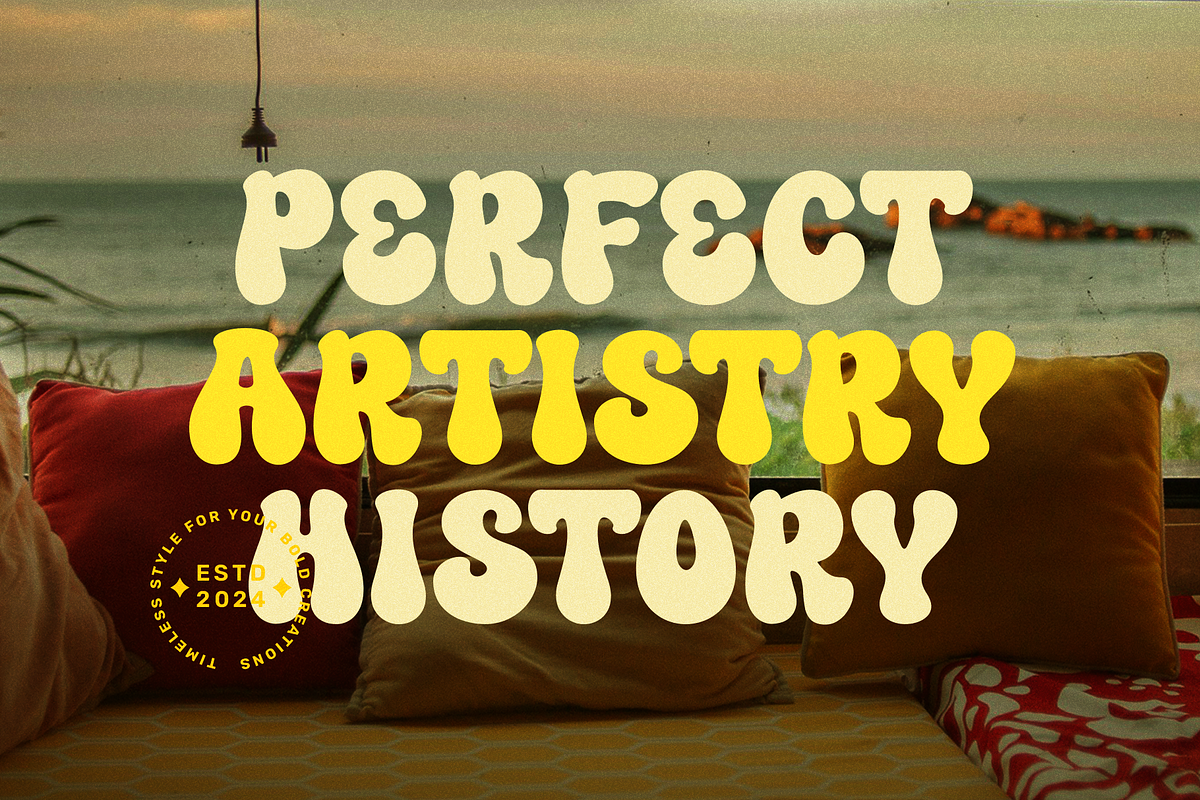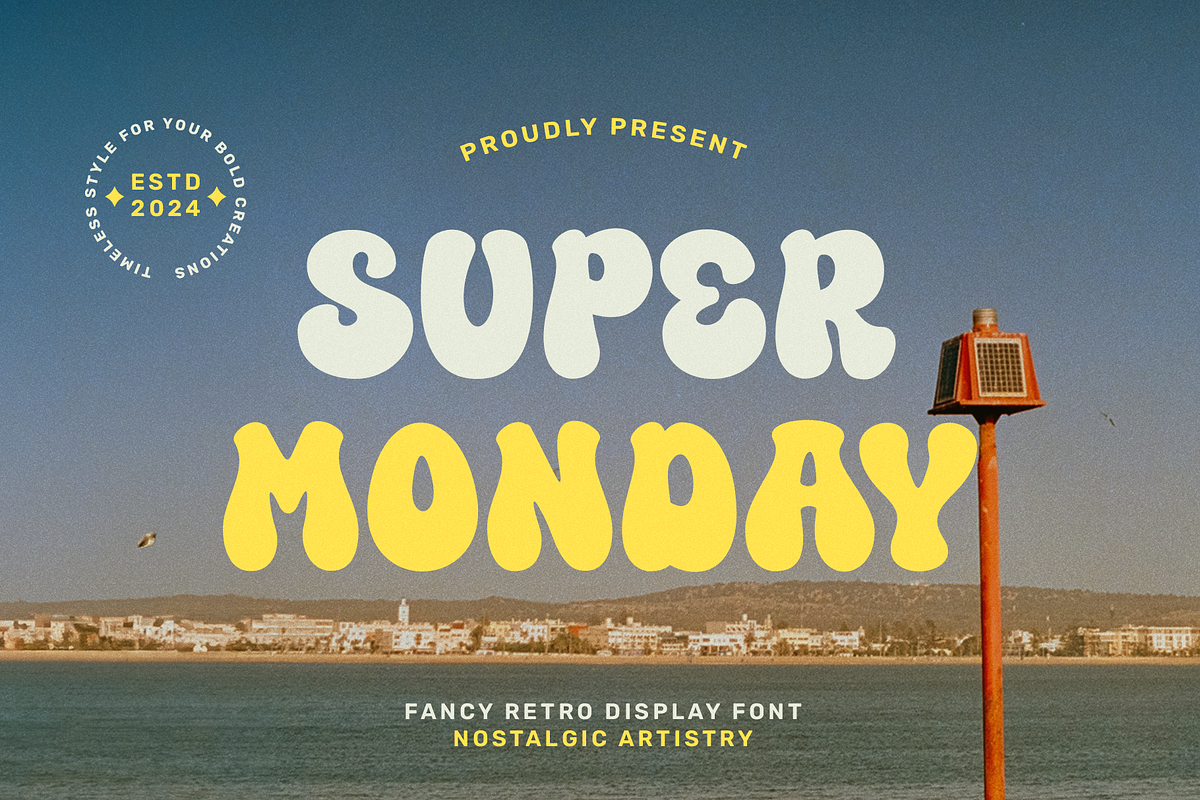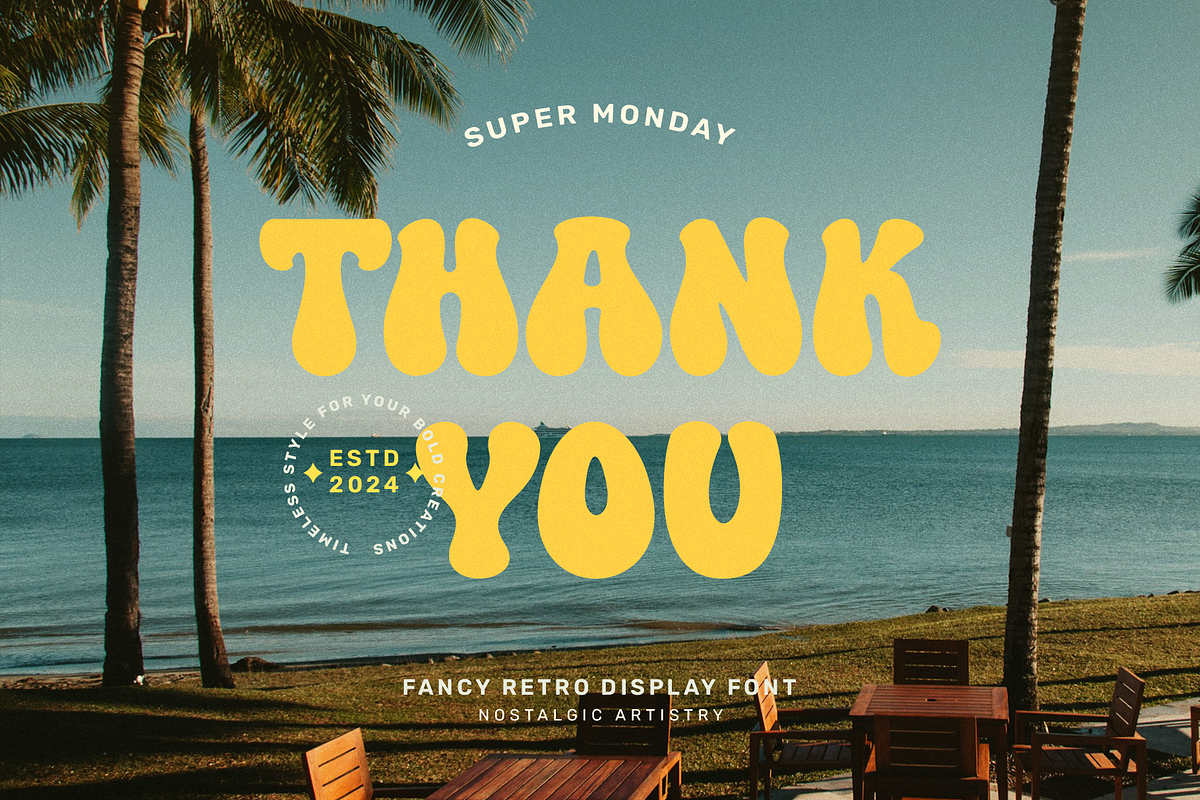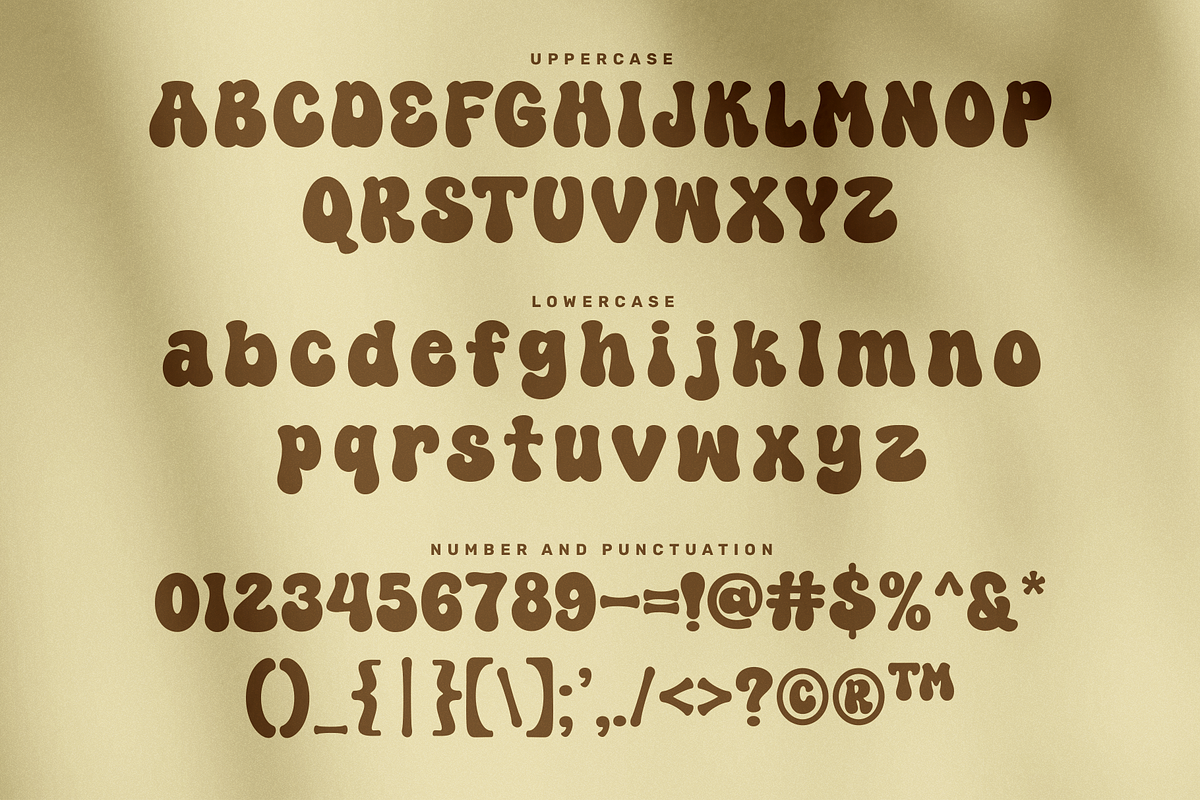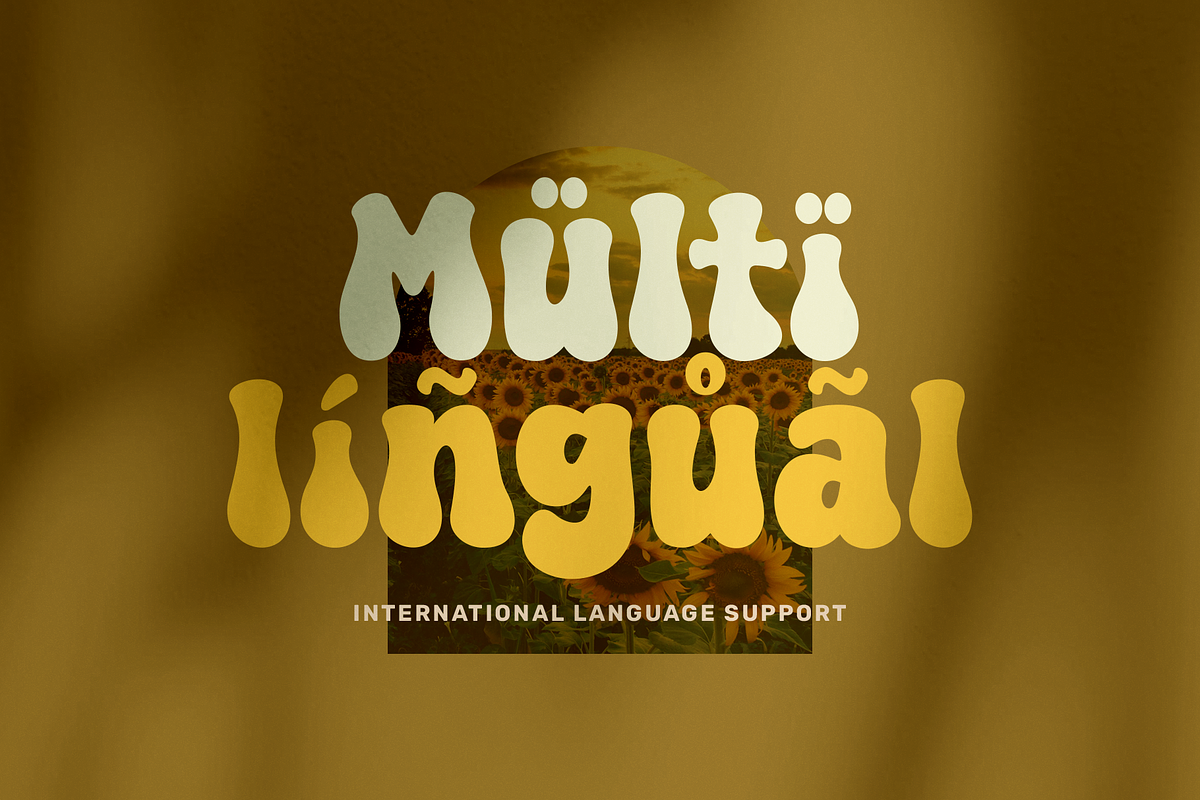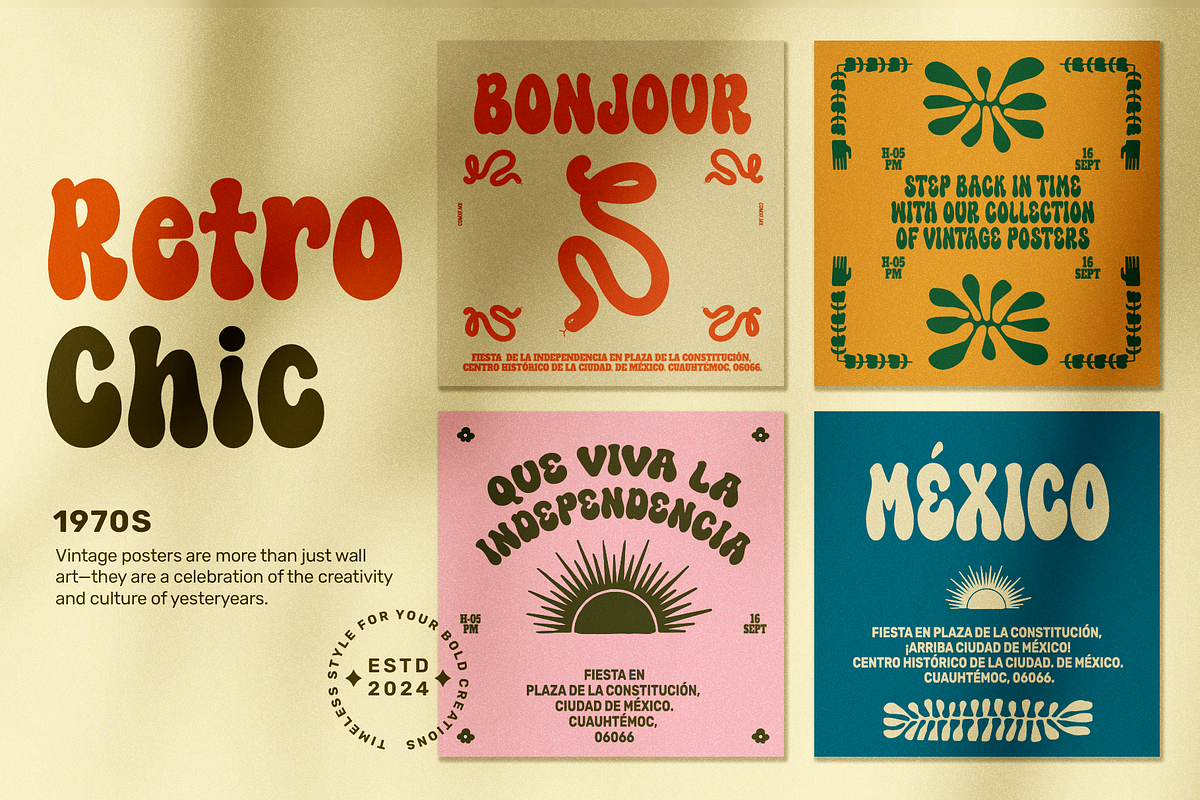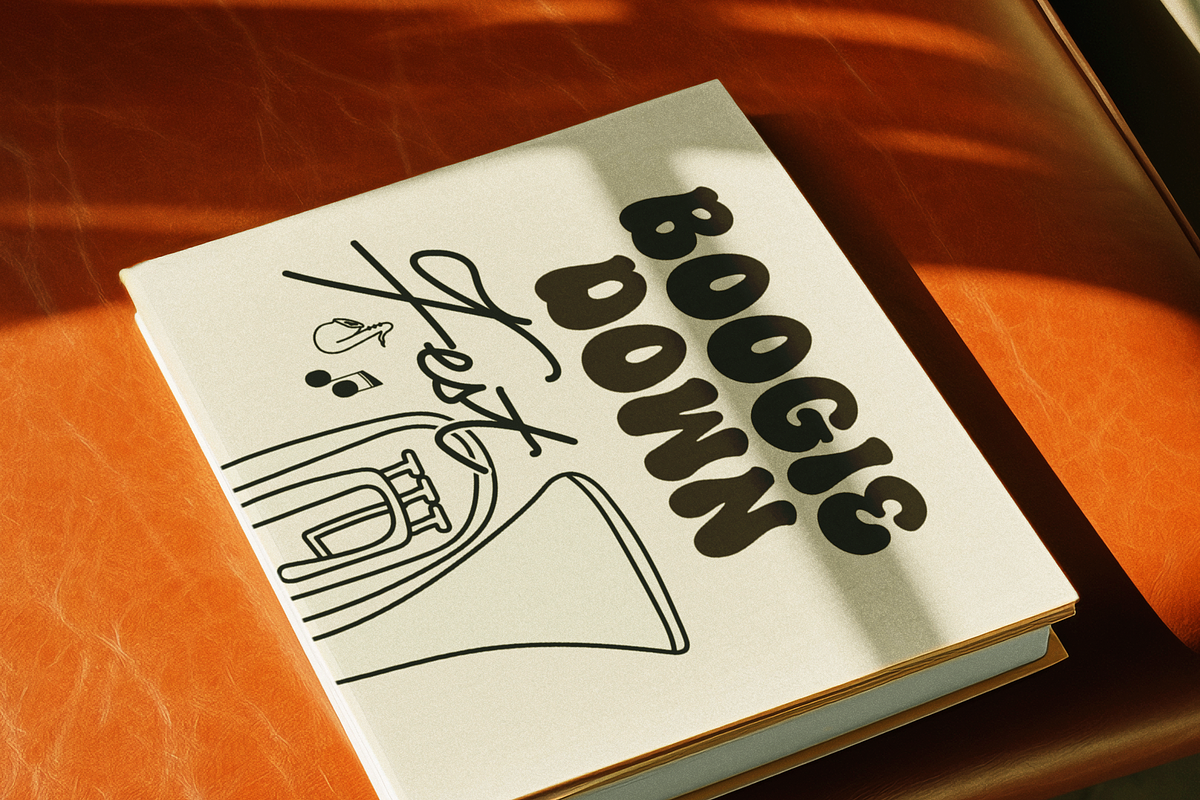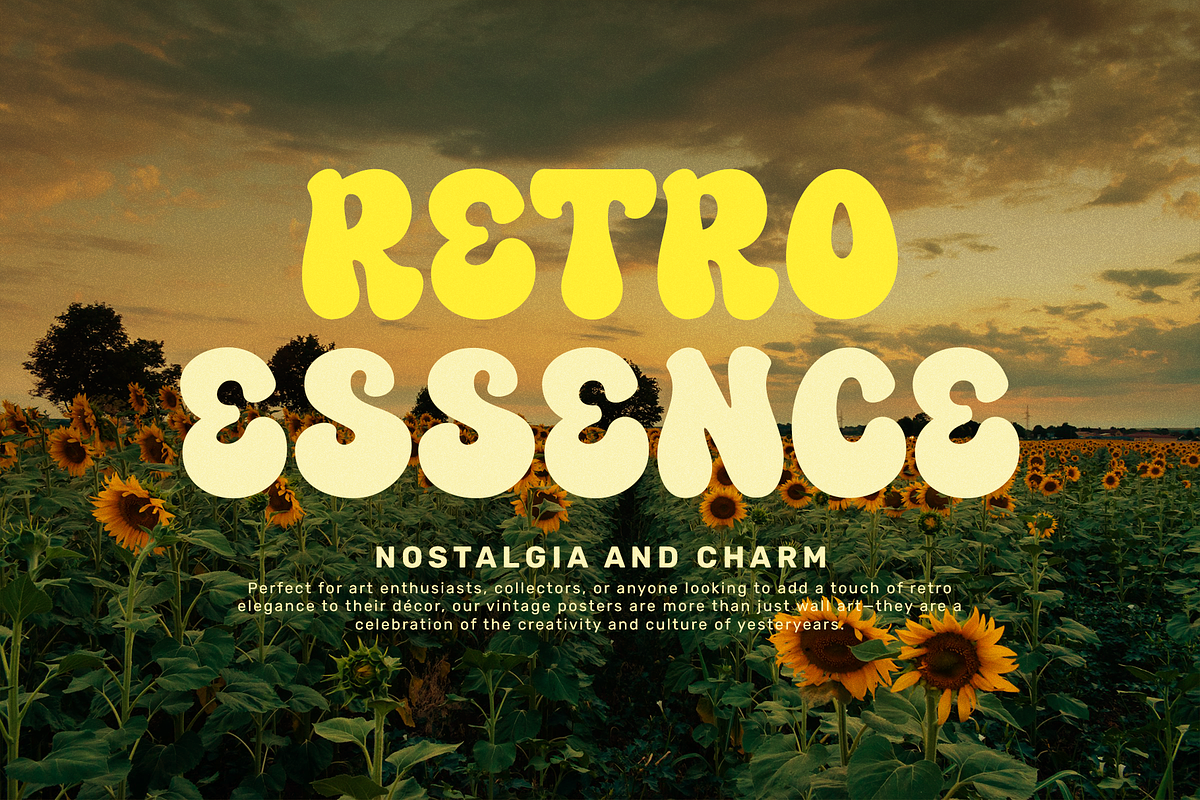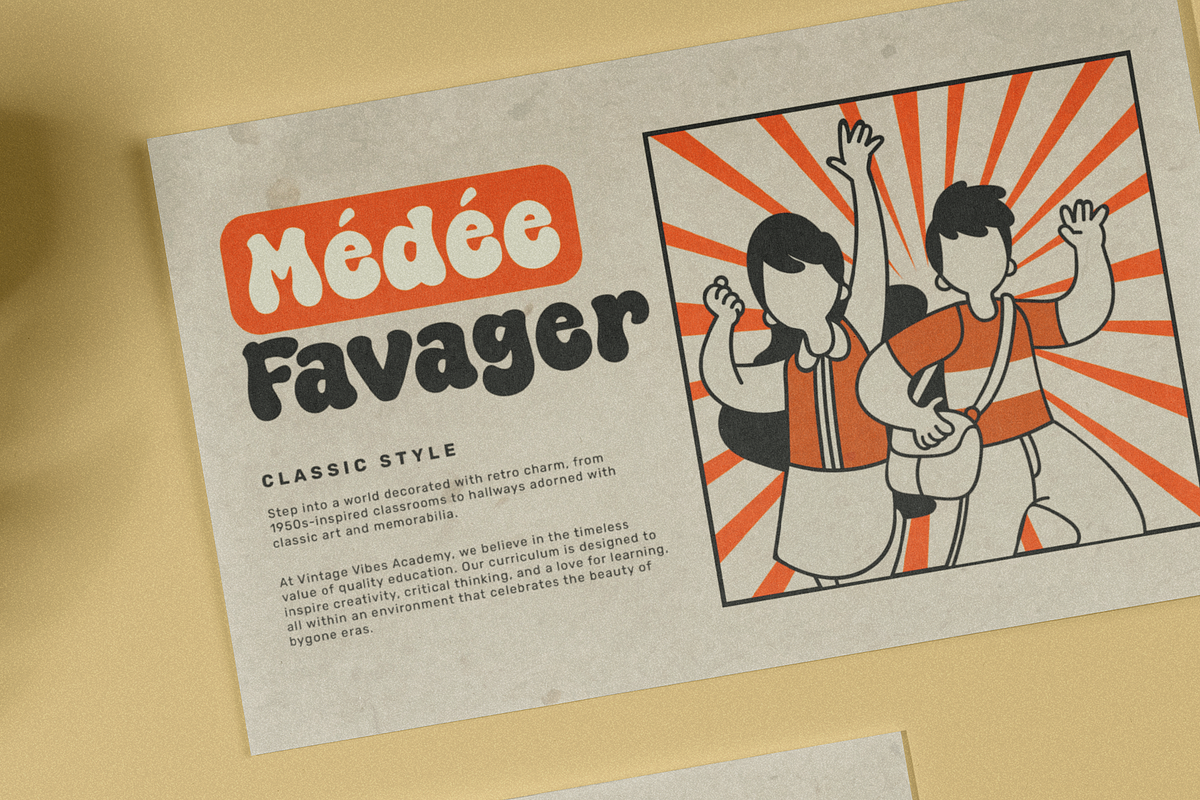
Super Monday - Fancy Retro Font
Channel the groovy vibes with Super Monday!
This playful, hand-lettered font injects a shot of sunshine into your designs. Its simple, bubbly characters and casual style evoke a sense of retro charm, perfect for adding a touch of nostalgia to quotes, logos, packaging, and more.